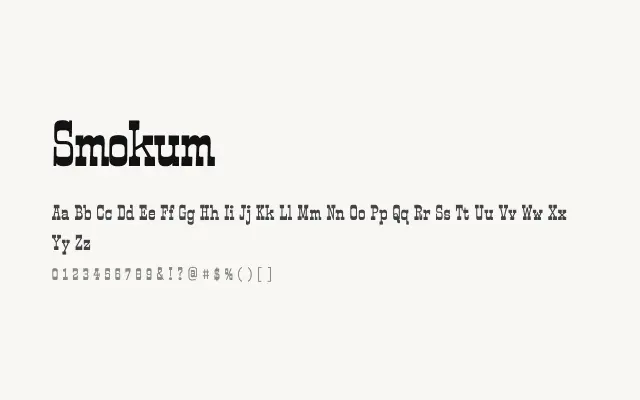
A rough-edged display face with unmistakable Western Americana character, recalling hand-painted frontier signage.
Smokum trades on nostalgia and texture, channelling the visual language of old saloon signs, circus bills, and frontier typography. It suits themed restaurant branding, retro event posters, and novelty packaging where period authenticity is the goal. Its single weight and highly specific personality limit its versatility considerably.
Smokum is a decorative display typeface with a strong Western or frontier aesthetic, featuring rough, irregular letterforms evoking hand-painted signage and vintage Americana. Its texture and character are deliberately crude.